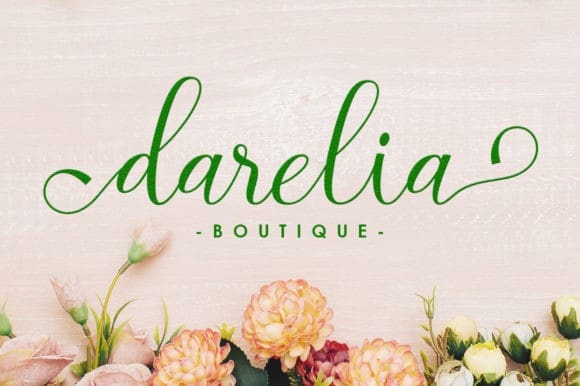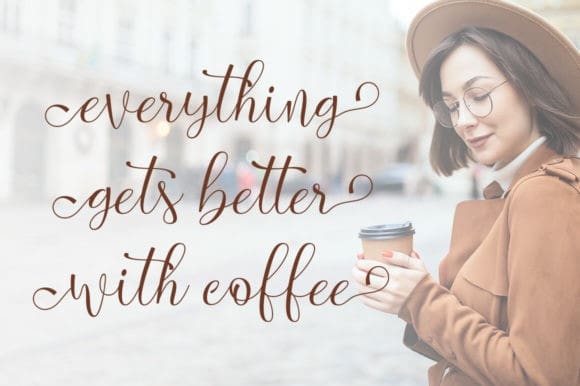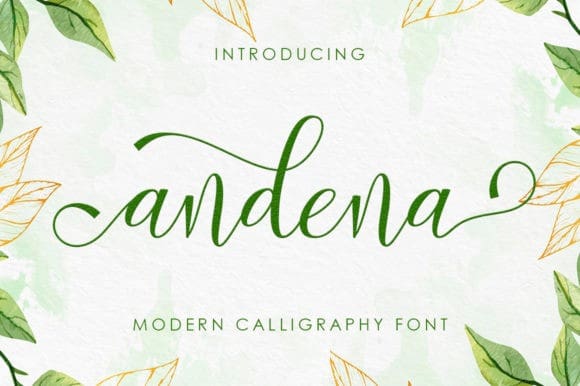
Andena Script Font
Andena Script Font, is an incredibly distinct, delicate and timeless handwritten font. It looks stunning on wedding invitations, thank you cards, quotes, greeting cards, logos, business cards and every other design which needs a handwritten touch.